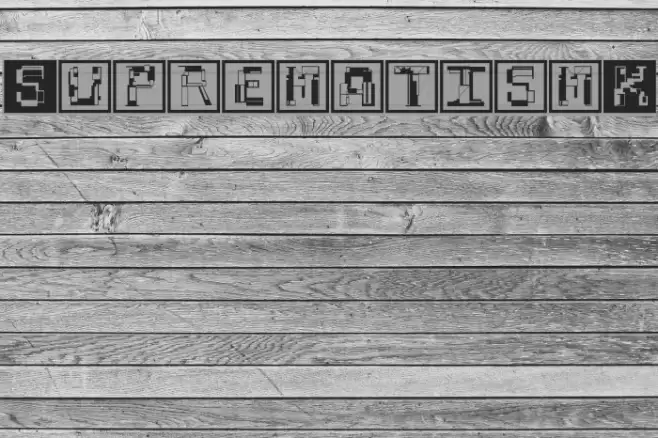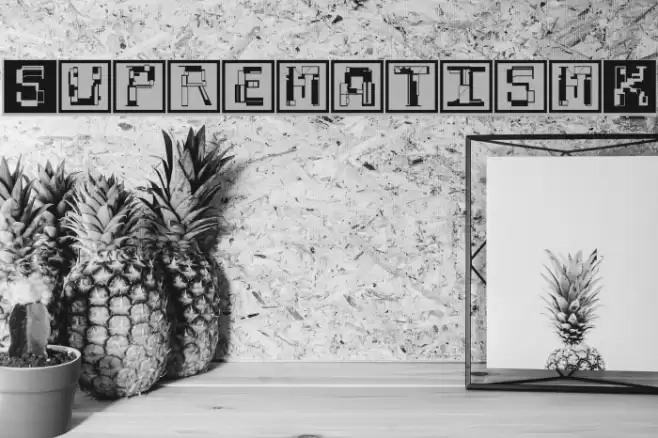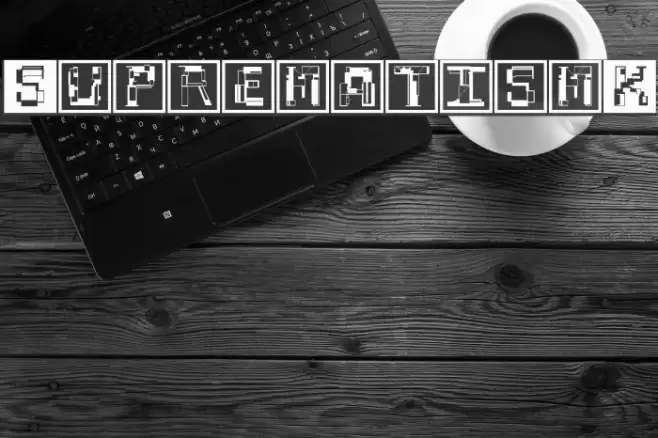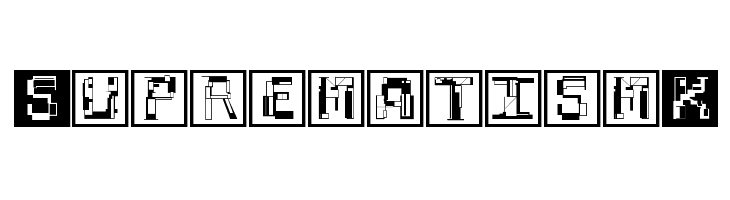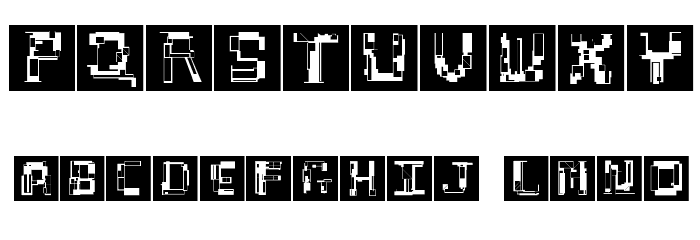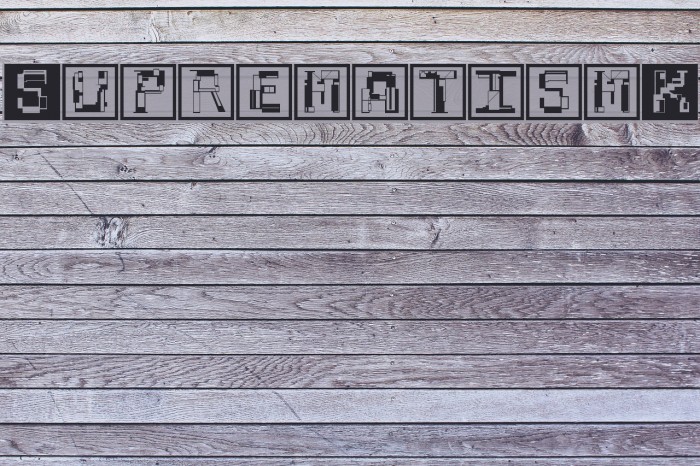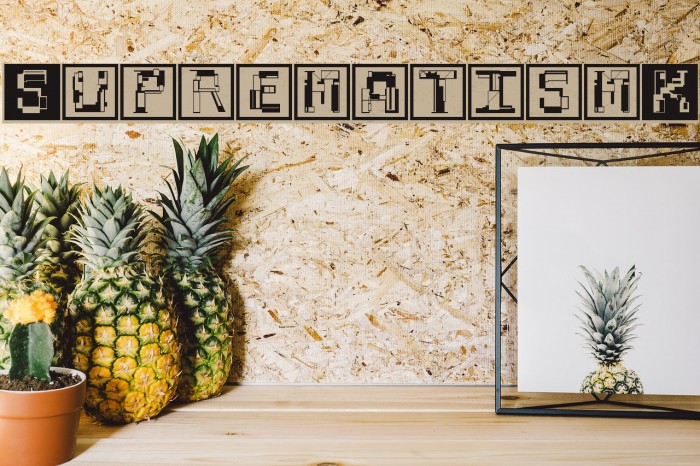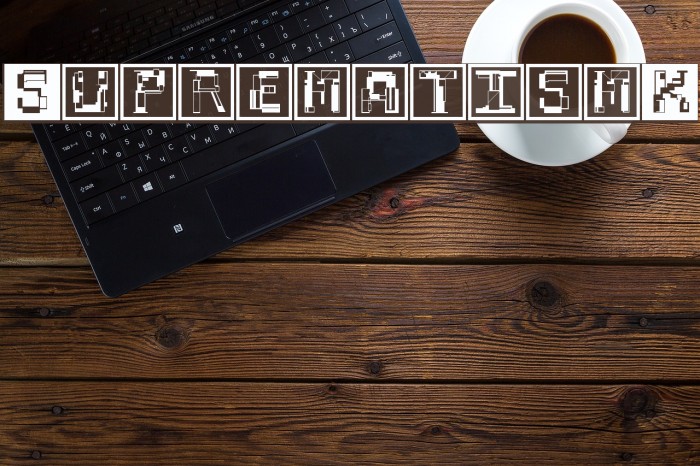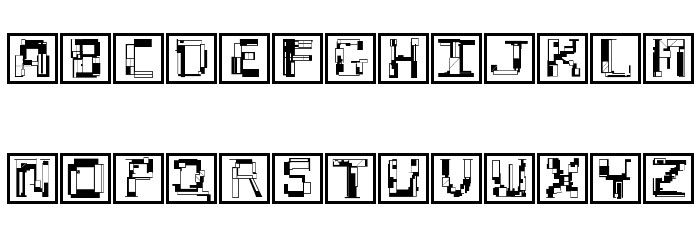
SuprematismK Font
SuprematismK Description
This font features a bold, geometric design with a distinct digital and abstract aesthetic. Each character is enclosed within a square, creating a uniform and structured appearance. The letters are composed of fragmented shapes and lines, reminiscent of pixel art or digital glitches, giving it a modern and avant-garde feel. The use of negative space within the characters adds an element of complexity and intrigue. This font is highly decorative and best suited for projects that require a strong visual impact. Its unique style makes it ideal for creative and artistic applications.
A bold, geometric font with a digital, abstract aesthetic and fragmented design from Uncategorized fonts.
- Proposed Projects: Ideal for digital art projects, modern posters, album covers, and creative branding.